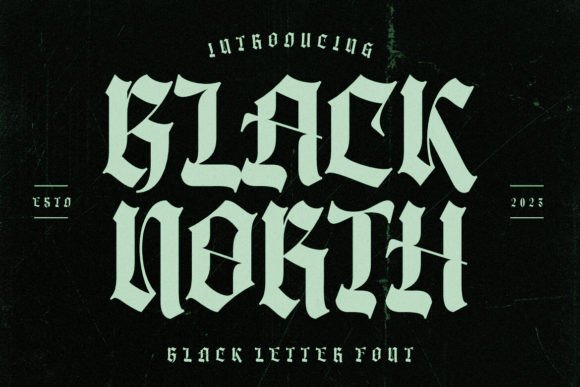
Introducing Black North Font: The Perfect Blend of Modern and Classic
In the world of typography, fonts play a crucial role in conveying the tone and personality of a brand or design. With the numerous font options available, it can be challenging to find the perfect one that suits your project’s needs. However, if you’re looking for a modern and casual display font with a friendly feel, look no further than Black North Font. In this article, we’ll explore the features and benefits of Black North Font and why it’s an excellent addition to your design projects.
What is Black North Font?
Black North Font is a modern and casual display font that boasts an incredibly friendly feel. At first glance, it may seem like a traditional blackletter font, but upon closer inspection, you’ll notice its clean and modern style. This unique blend of classic and contemporary elements makes Black North Font stand out from other fonts in its category.
Key Characteristics of Black North Font
- Full Uppercase and Lowercase Letters: Black North Font comes with a comprehensive set of full uppercase and lowercase letters, making it perfect for a wide range of design projects.
- Numbers and Punctuation: In addition to letters, this font also includes numbers and punctuation marks, ensuring that you have everything you need to create visually appealing designs.
- Extensive Language Support: Black North Font offers extensive language support, making it an excellent choice for designers who work with clients from diverse linguistic backgrounds.
What Can You Use Black North Font For?
Black North Font is an incredibly versatile font that can be used for various design projects, including:
- Logos: Create a lasting impression with a custom logo that incorporates Black North Font.
- Blog Titles: Add a touch of modernity and friendliness to your blog titles with this font.
- Branding: Use Black North Font to create a consistent brand identity across all your marketing materials.
- Packaging: Make your product packaging stand out with this unique and eye-catching font.
- Barber Shop: Create a bold and stylish look for your barber shop’s signage and marketing materials.
- Fashion: Use Black North Font to add a touch of sophistication and elegance to your fashion designs.
- Invitations: Create beautiful and unique invitations for special occasions, such as weddings and birthday parties.
- Greeting Cards: Add a personal touch to your greeting cards with this lovely font.
- Posters: Create eye-catching posters that grab attention with Black North Font.
- Business Cards: Make a great impression with custom business cards that feature this modern font.
- Clothing: Use Black North Font to create stylish and modern clothing designs.
- Letters: Add a touch of personality to your letters and correspondence with this lovely font.
- Stationery: Create beautiful and functional stationery that reflects your brand’s personality.
Benefits of Using Black North Font
So, why should you choose Black North Font for your design projects? Here are just a few benefits:
- Unique and Eye-Catching: Black North Font is a one-of-a-kind font that will make your designs stand out from the crowd.
- Modern and Friendly: This font’s modern and friendly feel makes it perfect for brands that want to convey a approachable and welcoming tone.
- Versatile: Black North Font can be used for a wide range of design projects, making it a great addition to your font library.
- Easy to Read: Despite its unique style, Black North Font is easy to read, making it perfect for body text and headlines.
In conclusion, Black North Font is an excellent choice for designers who want to add a touch of modernity and friendliness to their designs. With its unique blend of classic and contemporary elements, extensive language support, and versatility, this font is perfect for a wide range of design projects. Whether you’re looking to create a custom logo, blog title, or marketing materials, Black North Font is sure to turn your creative ideas into a true piece of art.